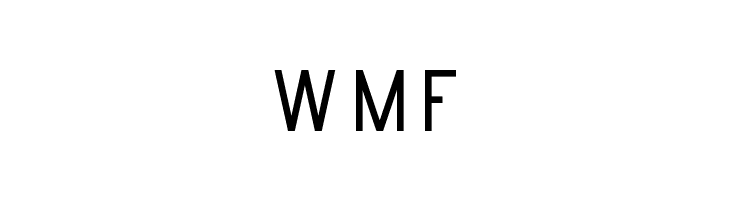
Amaretto Sour Font
A playful, hand-drawn font with whimsical and irregular characters.
Amareleta Font
A bold, playful font with rounded, thick strokes and a hand-drawn feel.
amaretto Font
A playful, whimsical font with curvy, decorative strokes.
Hollen amare sans Font
A modern, tall, and narrow sans-serif font with clean lines.
Hollen amare script script Font
A playful and casual script font with thin, flowing strokes and a hand-drawn feel.
Amare Font
Amarego PERSONAL USE Regular Font
A decorative serif font with ornate, high-contrast design suitable for display use.